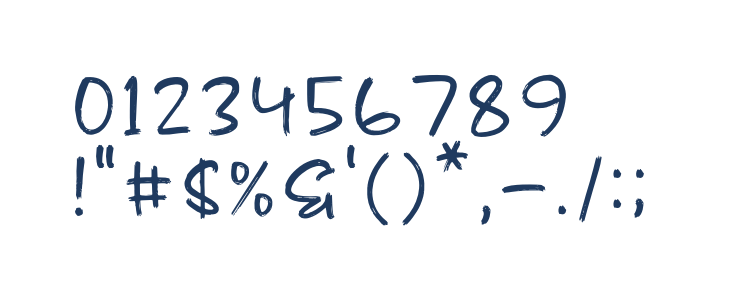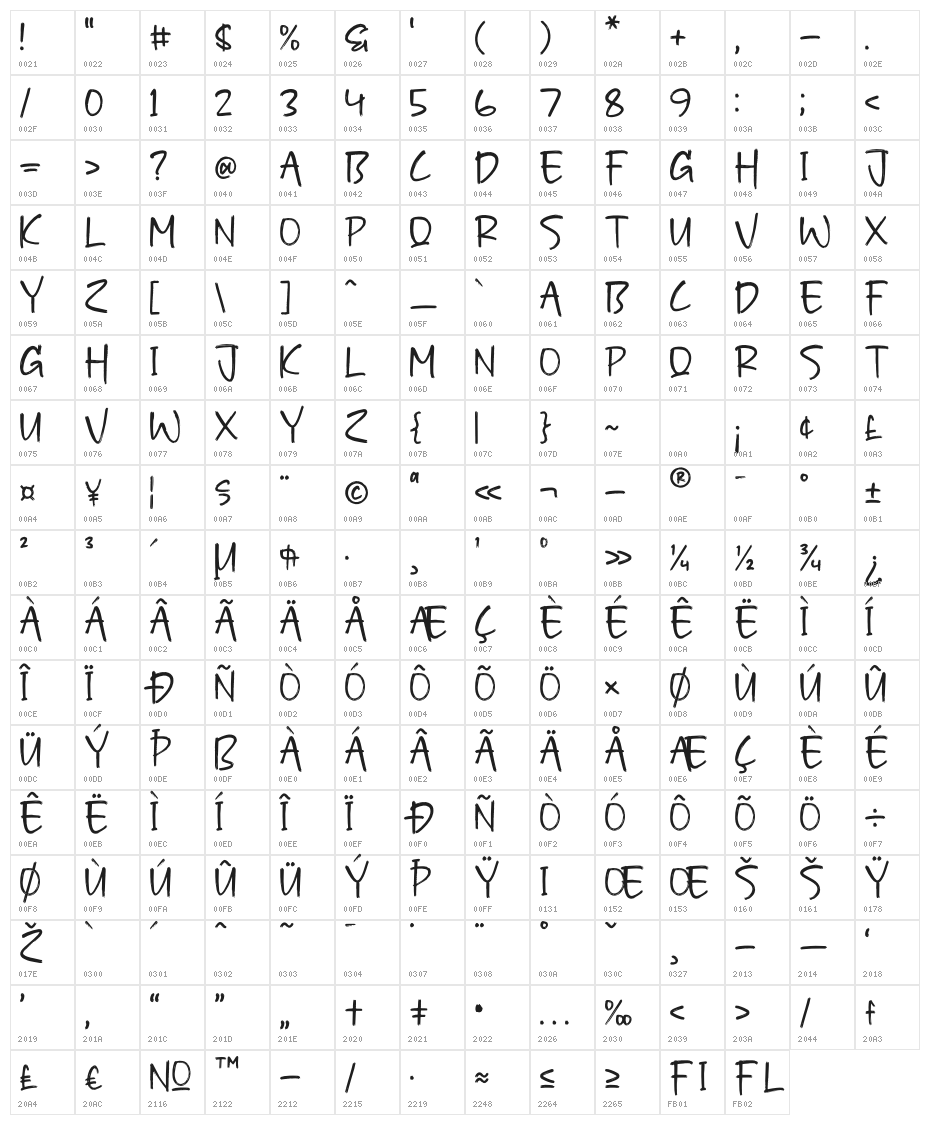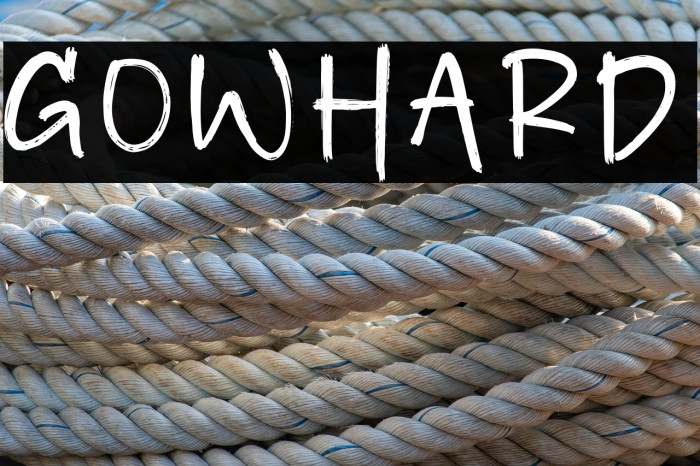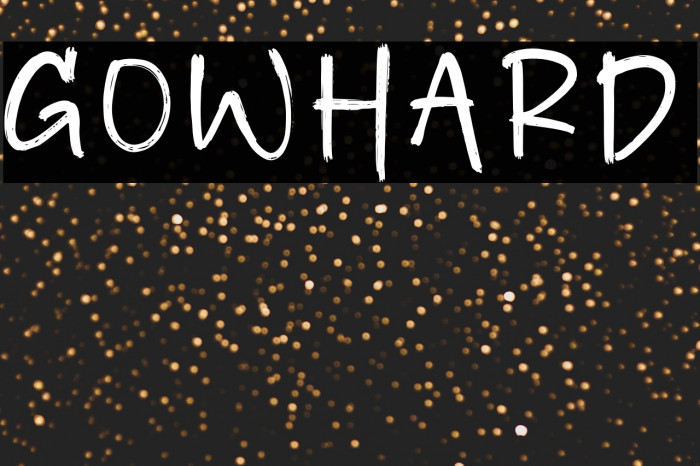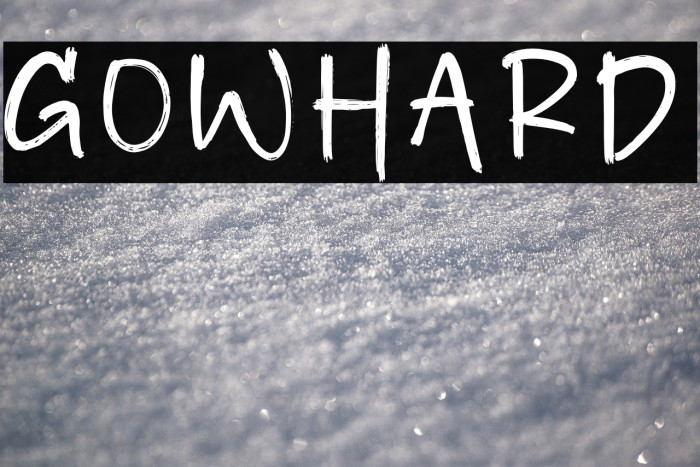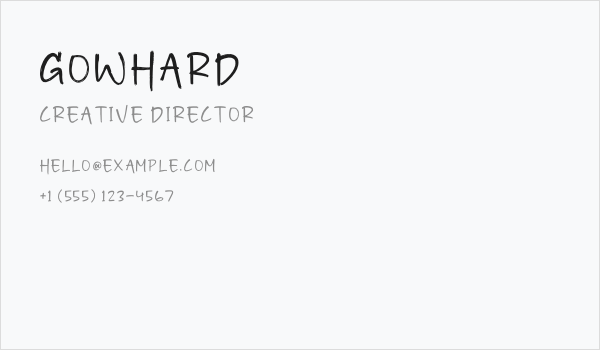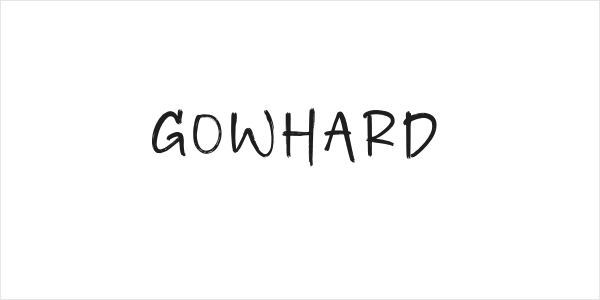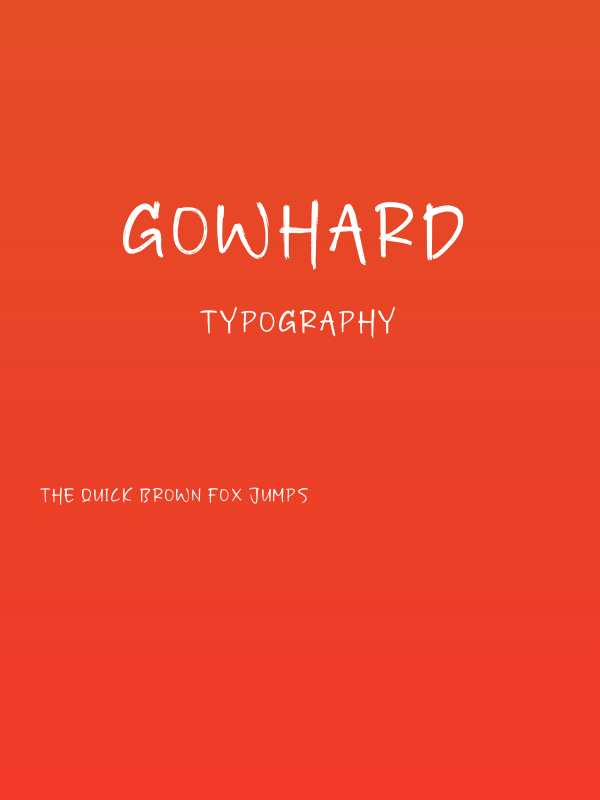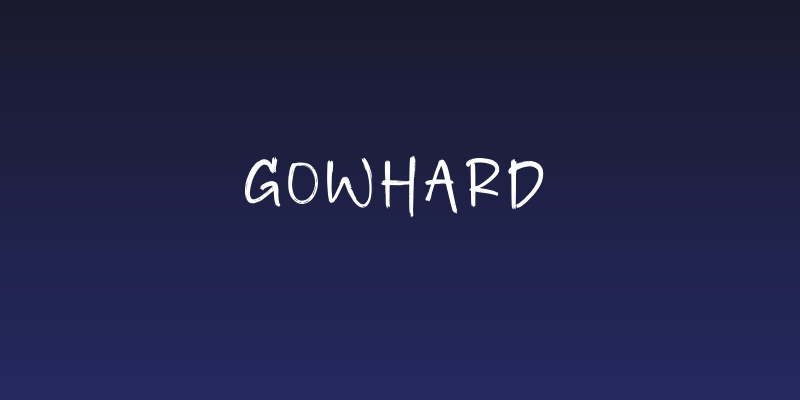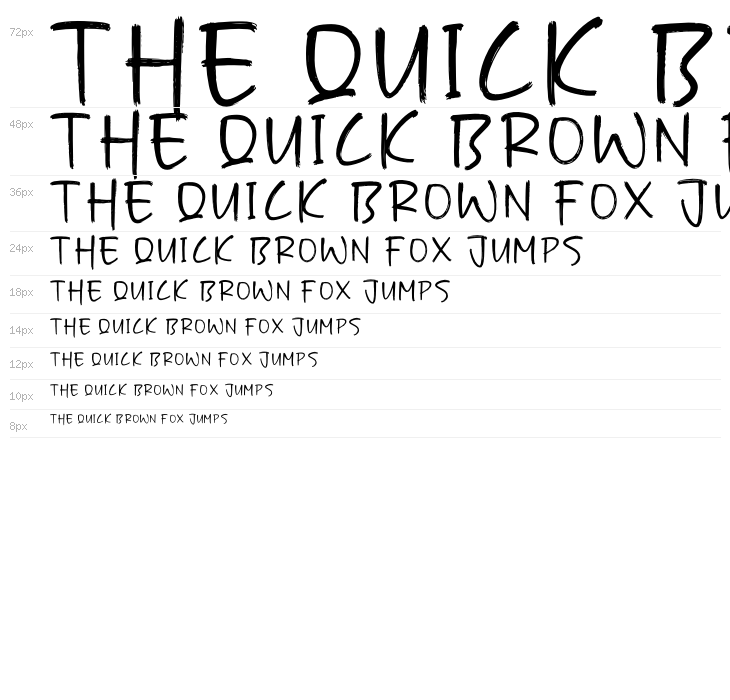
Gowhard Font
Gowhard Description
This font features a bold and expressive handwritten style, characterized by its dynamic and slightly irregular strokes that mimic the natural flow of handwriting. The uppercase and lowercase letters maintain a consistent height, giving the font a cohesive appearance. The strokes are thick and vary slightly in width, adding a sense of movement and energy. The numerals and special characters follow the same handwritten aesthetic, making them blend seamlessly with the alphabet. This font's playful and informal nature makes it suitable for creative and casual applications.